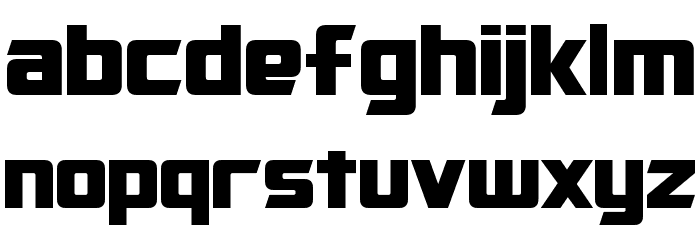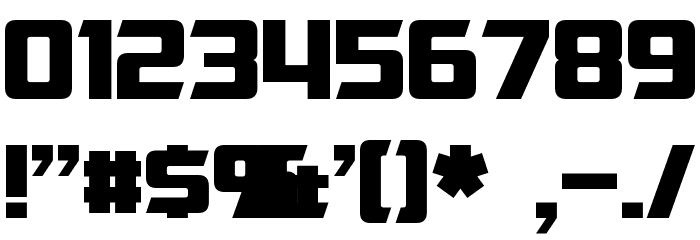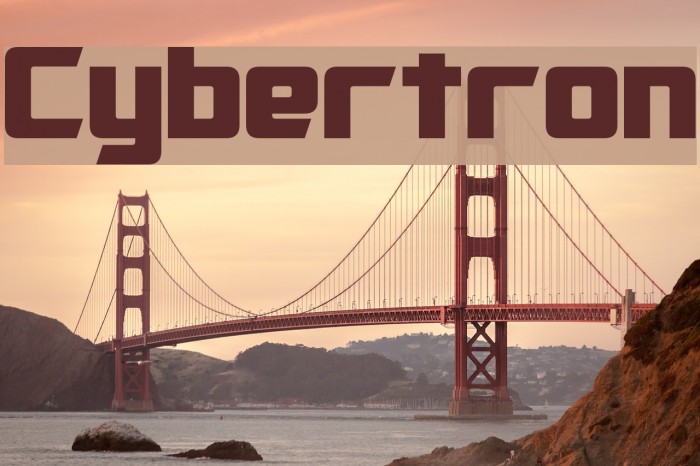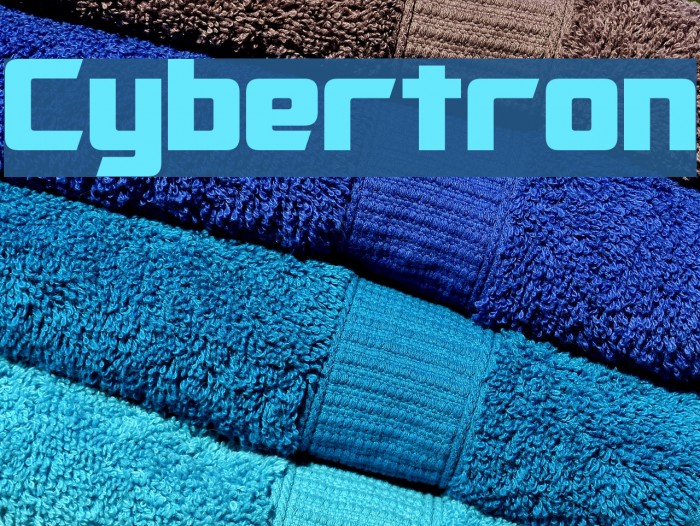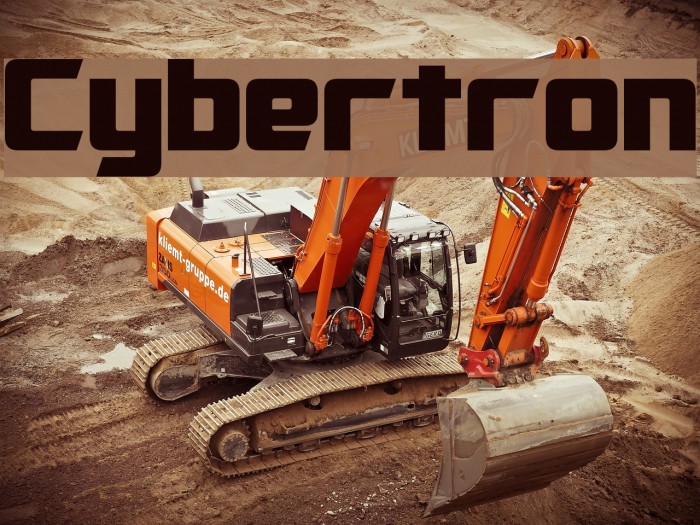
Cybertron Font
This font features a bold, futuristic design with angular, geometric shapes that convey a sense of modernity and technology. The uppercase letters are particularly striking, with sharp edges and a blocky appearance that suggests strength and stability. The lowercase letters maintain the same geometric style, ensuring consistency throughout the typeface. Numbers and special characters are equally bold and well-defined, making them stand out in any design. The overall style is reminiscent of science fiction and digital interfaces, making it ideal for projects that require a modern and tech-savvy aesthetic.
A bold, futuristic font with geometric shapes and a tech-inspired style.
- Proposed Projects: Ideal for technology branding, sci-fi movie posters, video game titles, and digital interfaces.